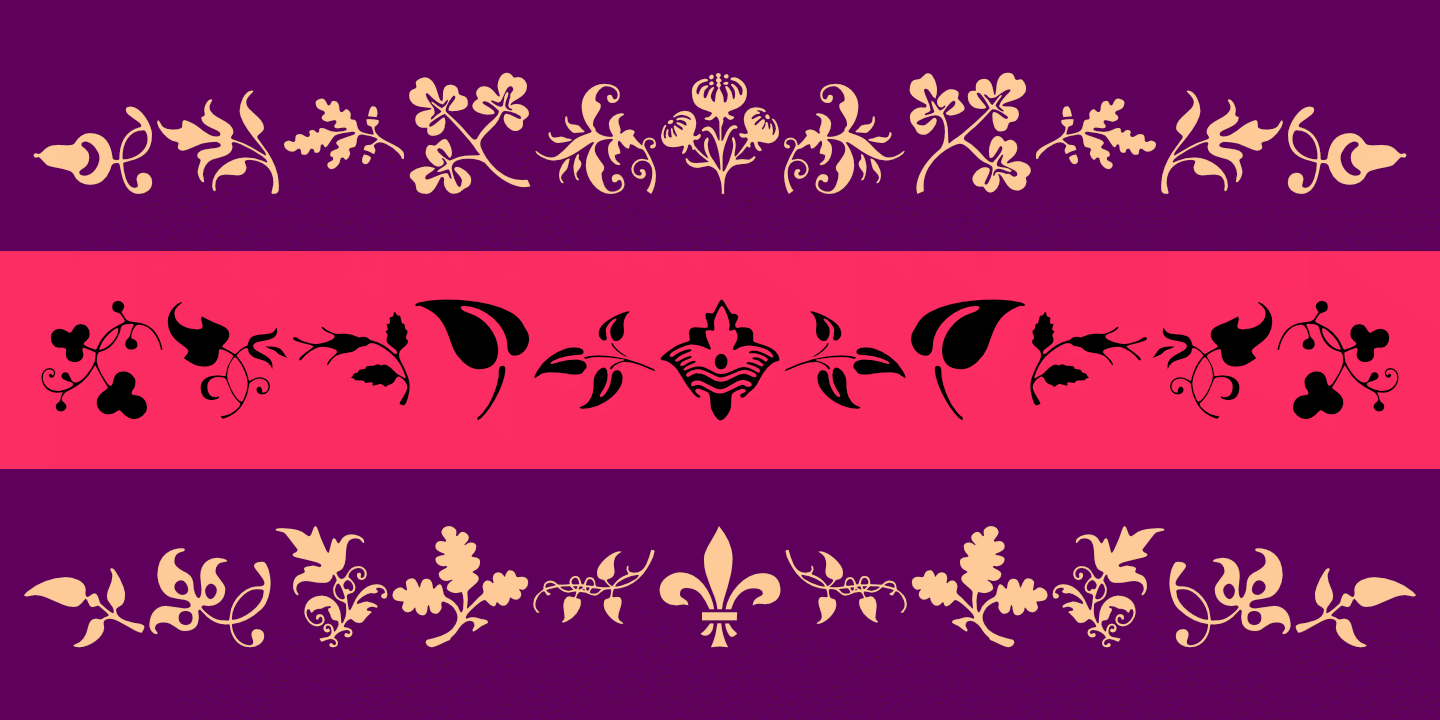
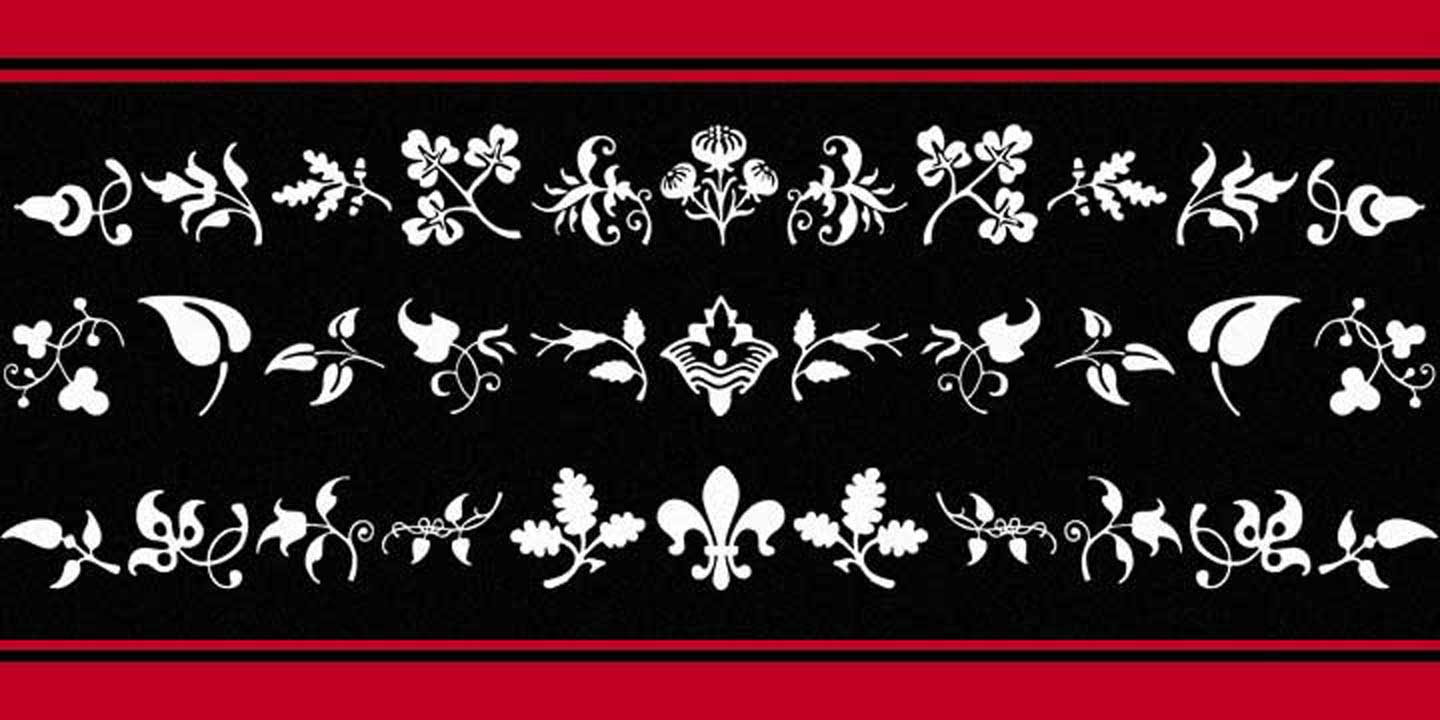
Castle Fleurons
A delightful collection of more than 200 classic fleurons. Useful for adding a tasteful accent to your documents or for creating borders.
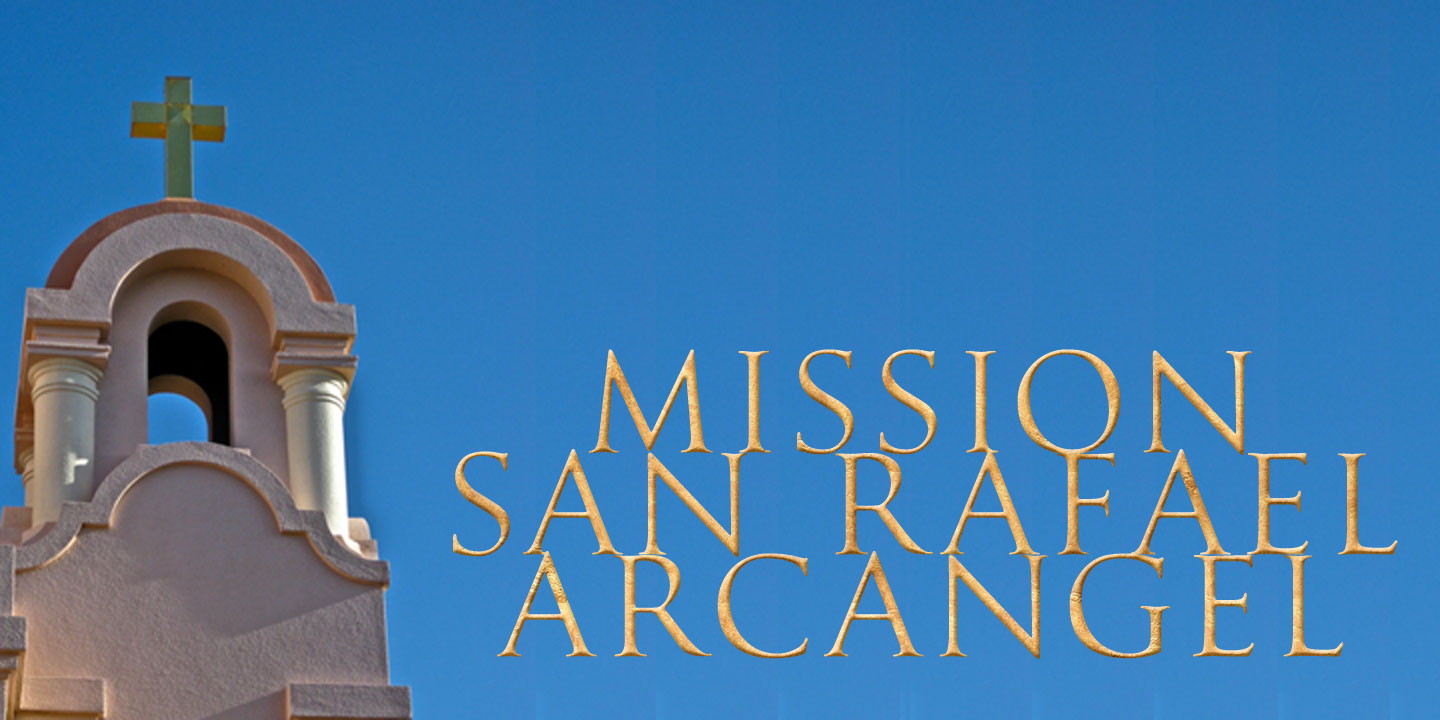
Goudy Trajan Pro Regular
Goudy Trajan™ is based on drawings by American type designer F. W. Goudy of his rendition of the capital letters on the Trajan column. Supports Latin, Greek, and Cyrillic scripts. This free download of the Regular weight is complete and includes almost 1500 glyphs.
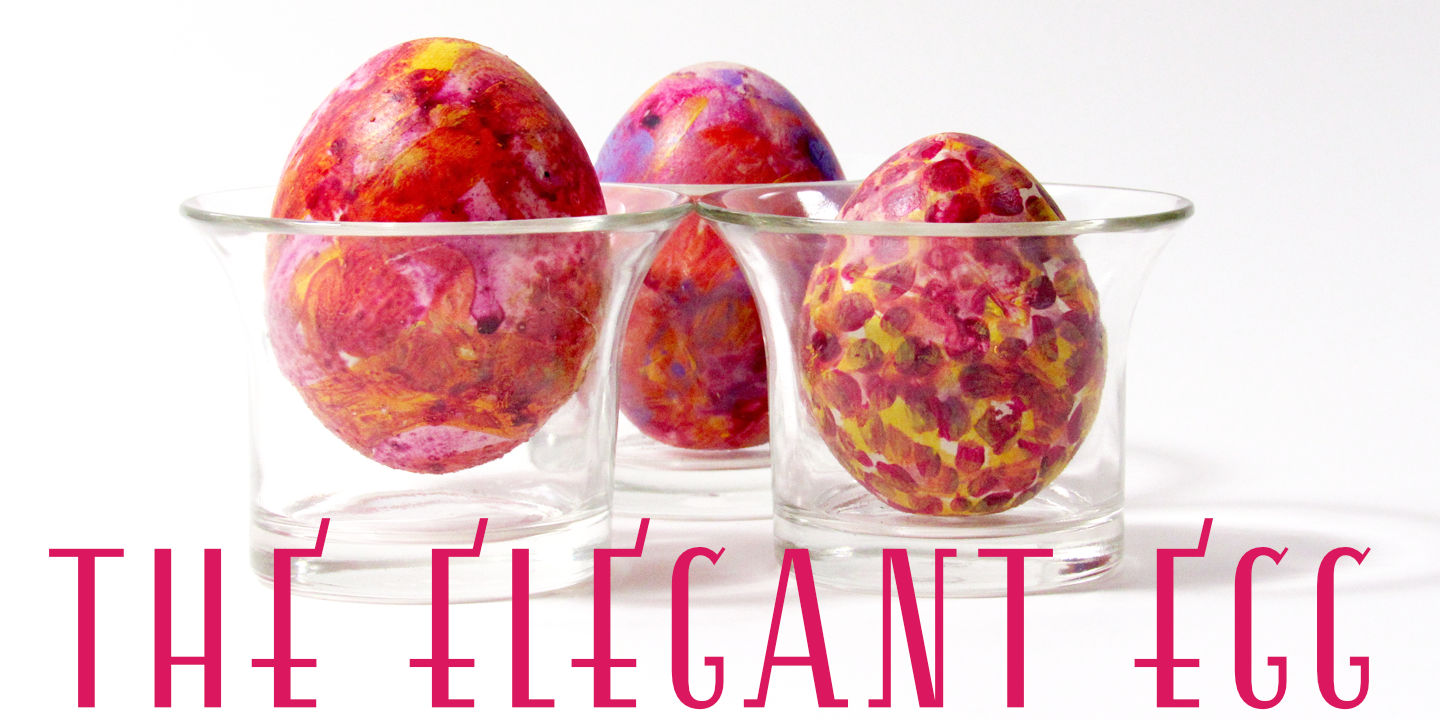
Esencia
Esencia™ was inspired by a Spanish stock certificate from 1941 with 11 beautiful art deco style letters for the words "PERFUMES y ESENCIAS". Slender, elegant, with a Spanish flare. Supports most European languages that use the Latin, Greek, or Cyrilllic alphabets.
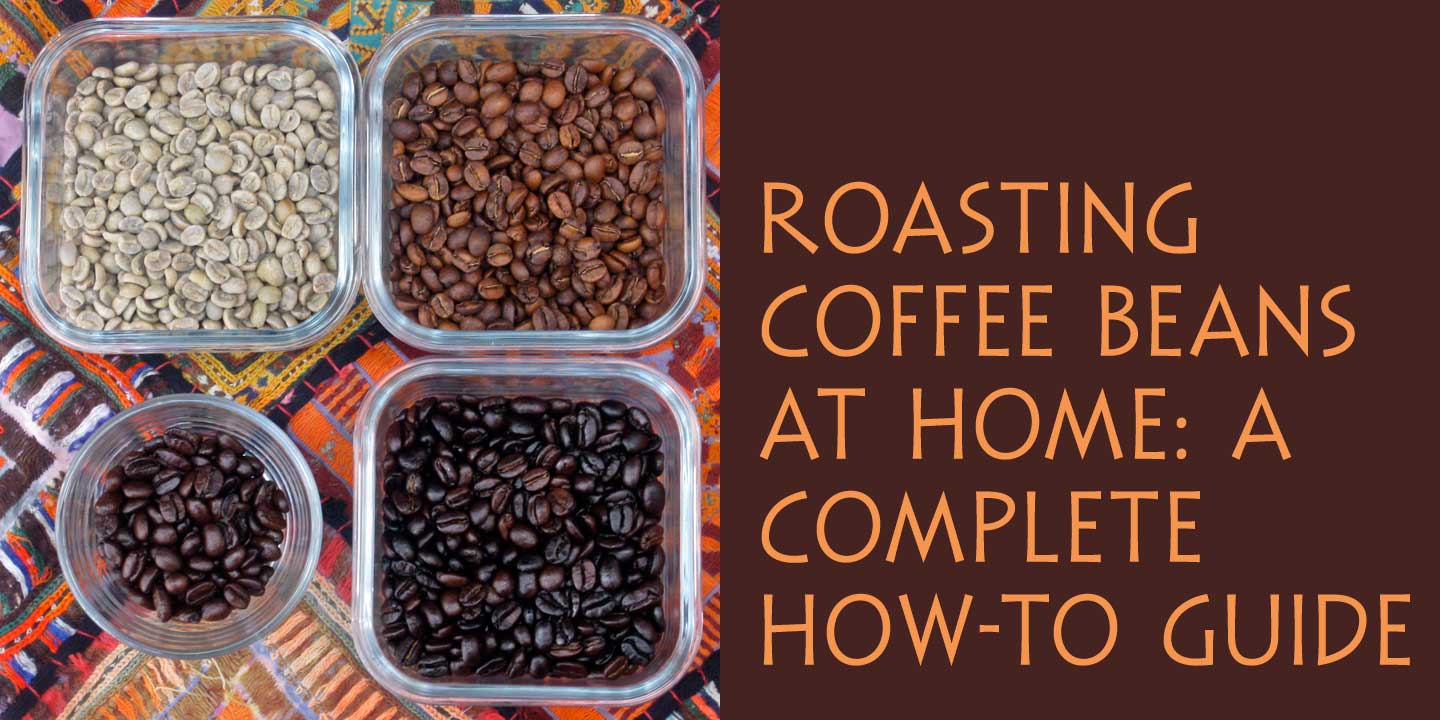
Minotaur
Minotaur™ is an original monoline design based on an Oscan votive inscription from the second century B.C.E. Just as the mythical Minotaur is half man and half bull, the font Minotaur is half modern and half ancient. Supports most modern European languages.
Sonrisa Cond Pro Thin
Gentle curves, open counters, and generous x-height give Sonrisa™ a cheerful, playful personality. Supports most languages that use the Latin, Greek (modern), or Cyrillic alphabets. Sonrisa™ Condensed Pro Thin is the lightest of 7 weights.
Zamenhof Inline
Zamenhof™ is a family of five fonts that can be used singly or layered to create a variety of bold, yet elegant, display styles. Supports most European languages as well as modern Greek, and many languages that use the Cyrillic alphabet.
Standard SExtd Regular
Standard CT, a cousin to the ubiquitous Helvetica and very similar to Akzidenz-Grotesk, is an alternative that is considerably warmer and a bit more idiosyncratic than those better-known faces. The semi-extended width is a new addition to the Standard CT family.